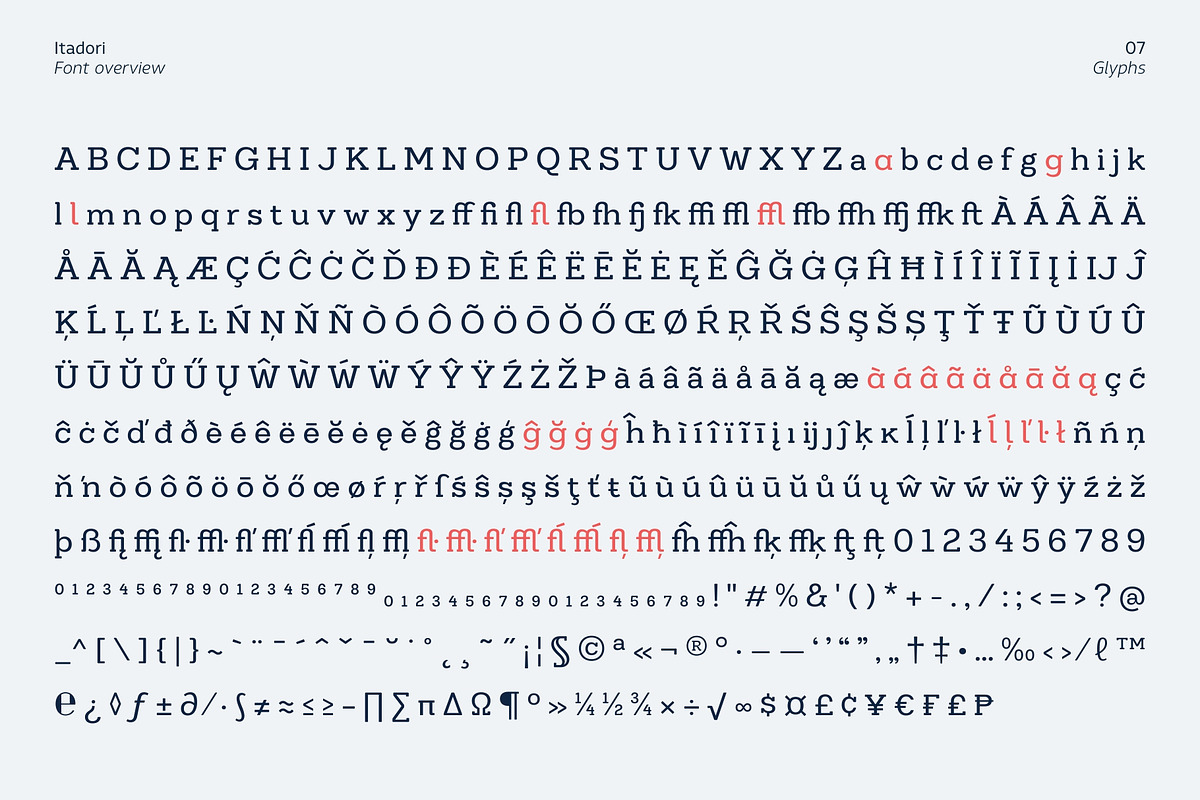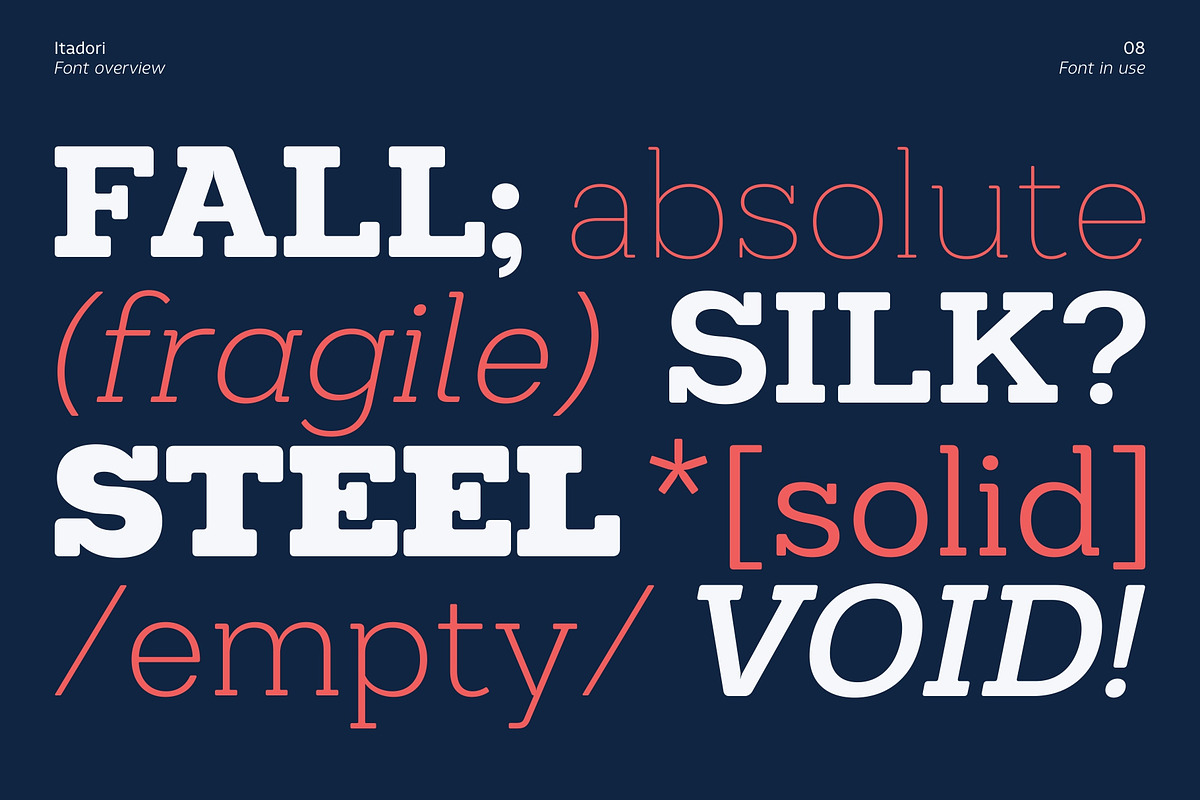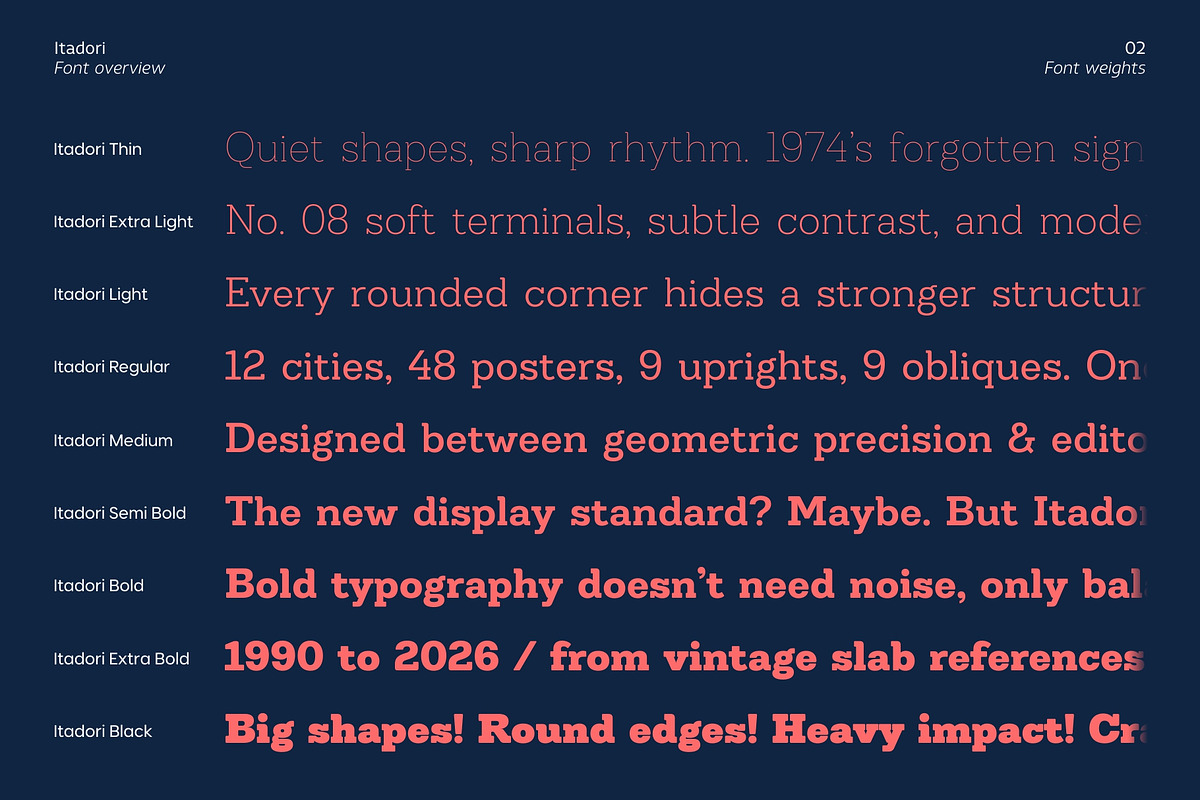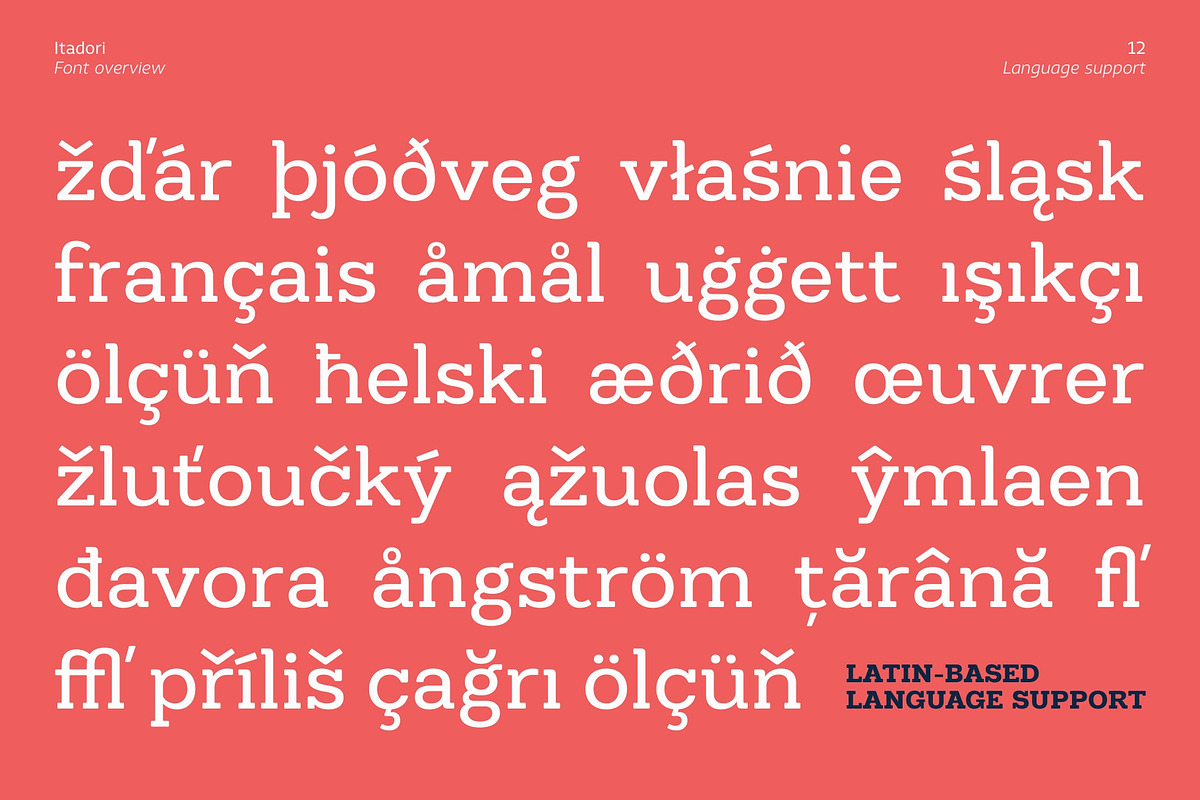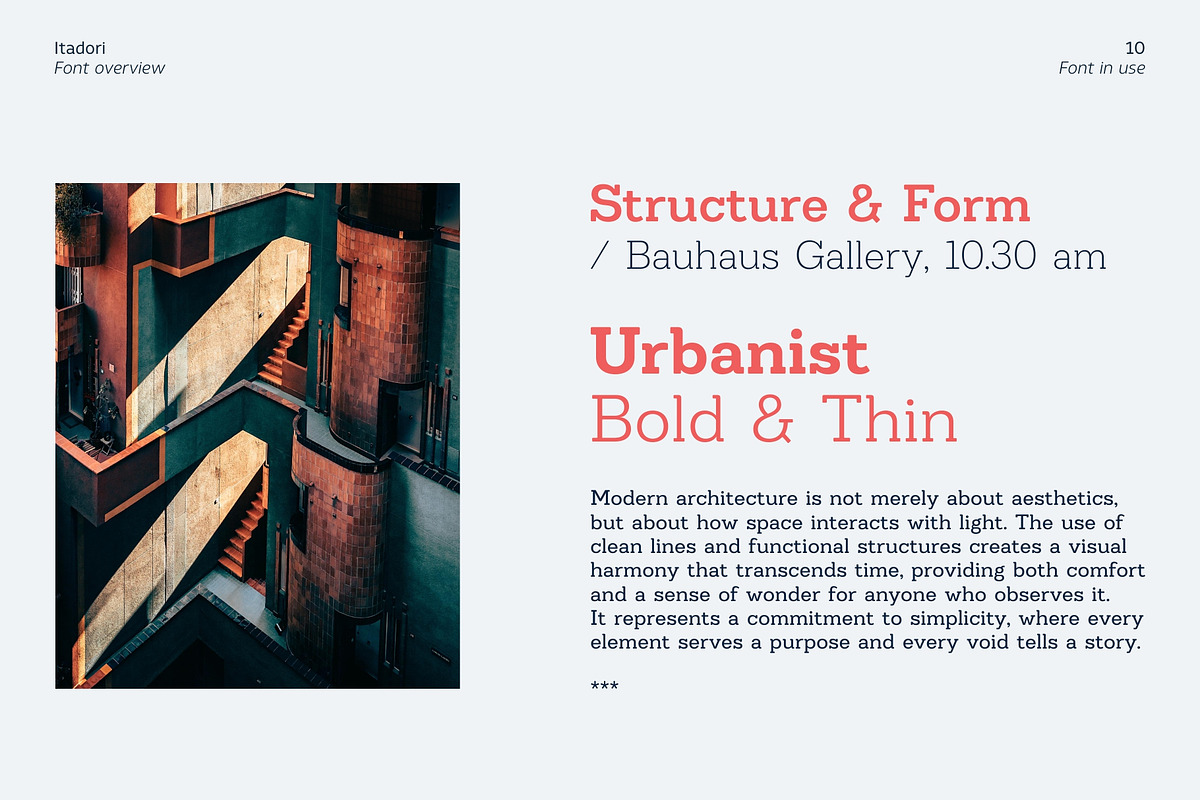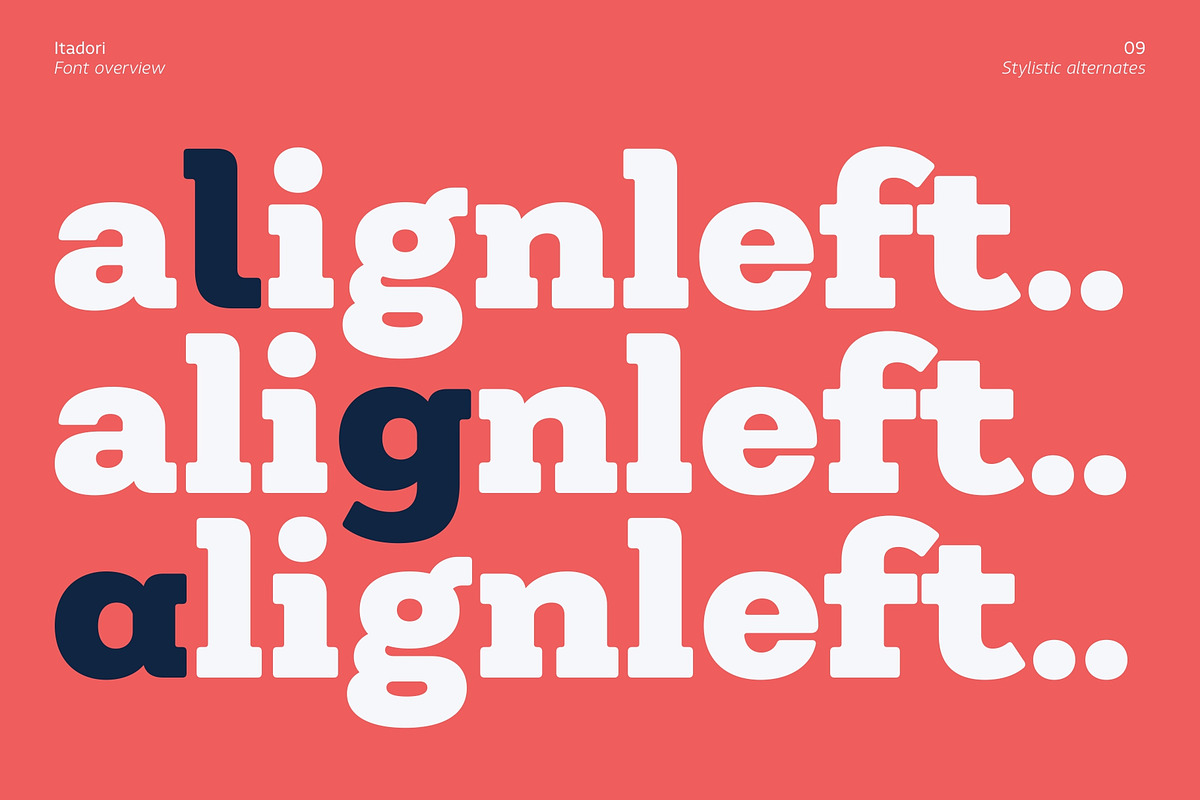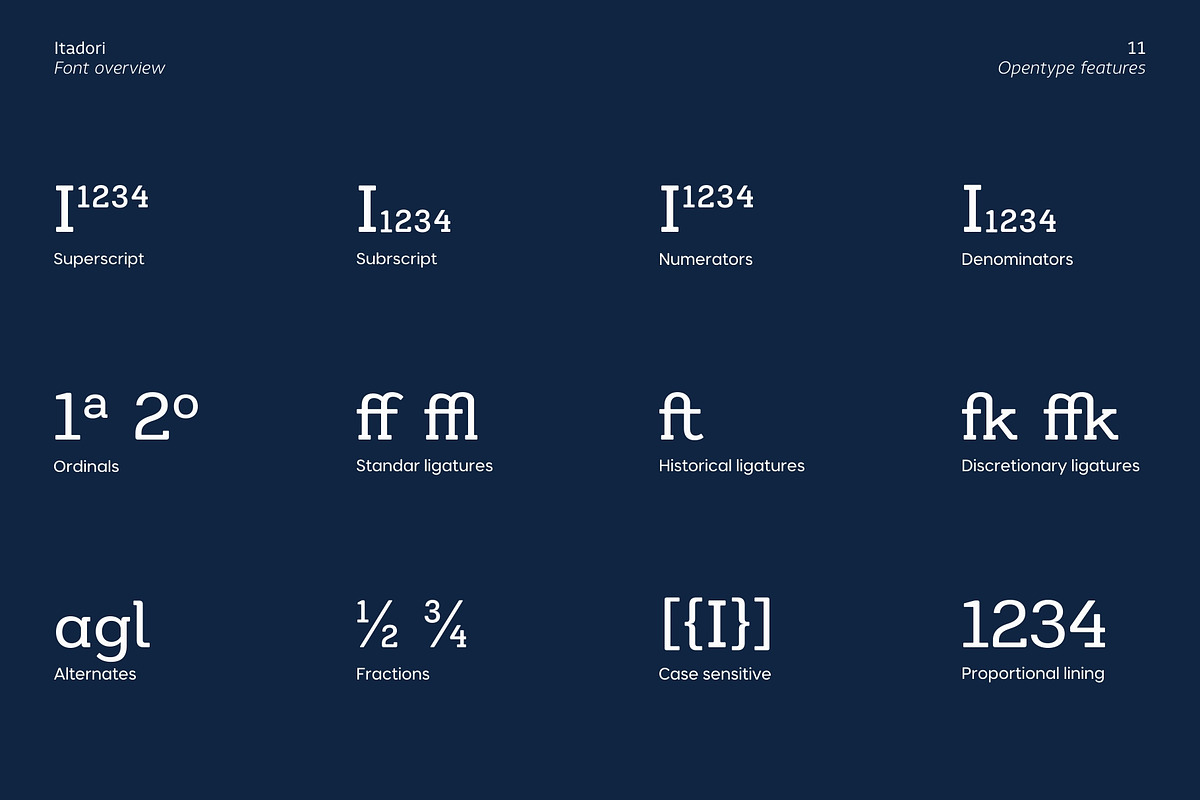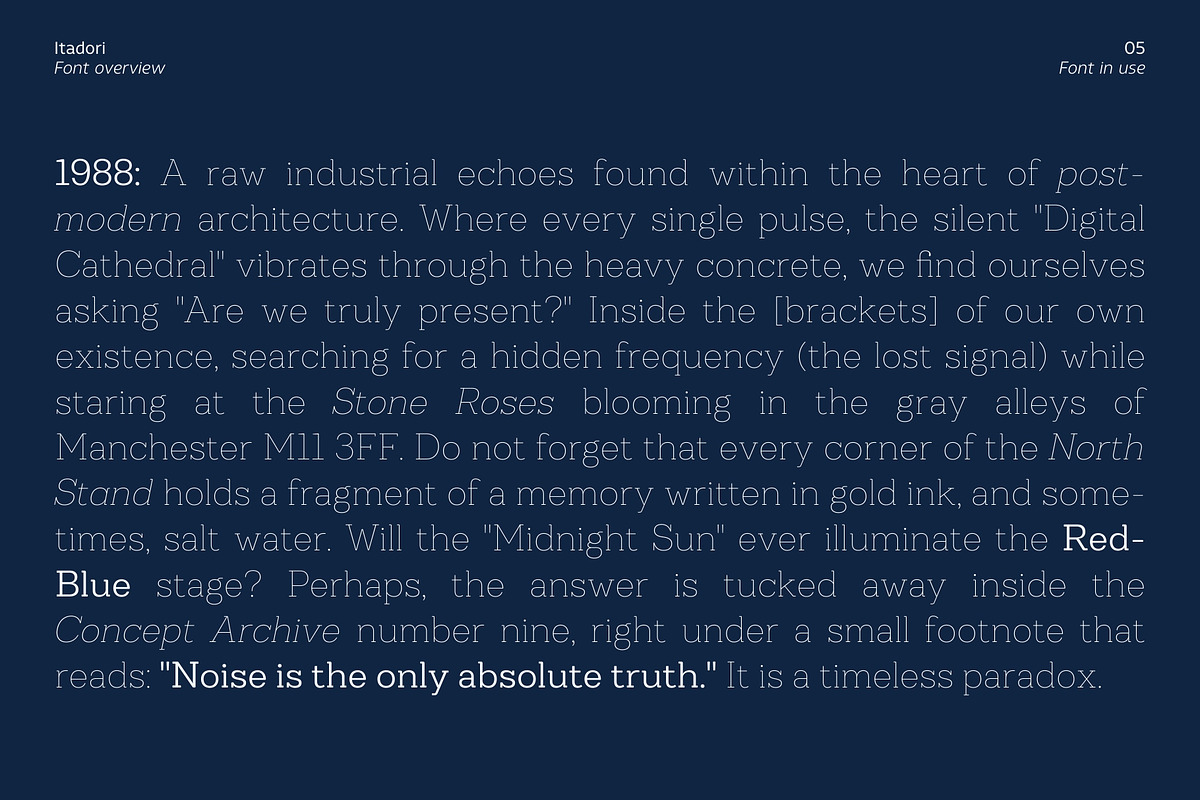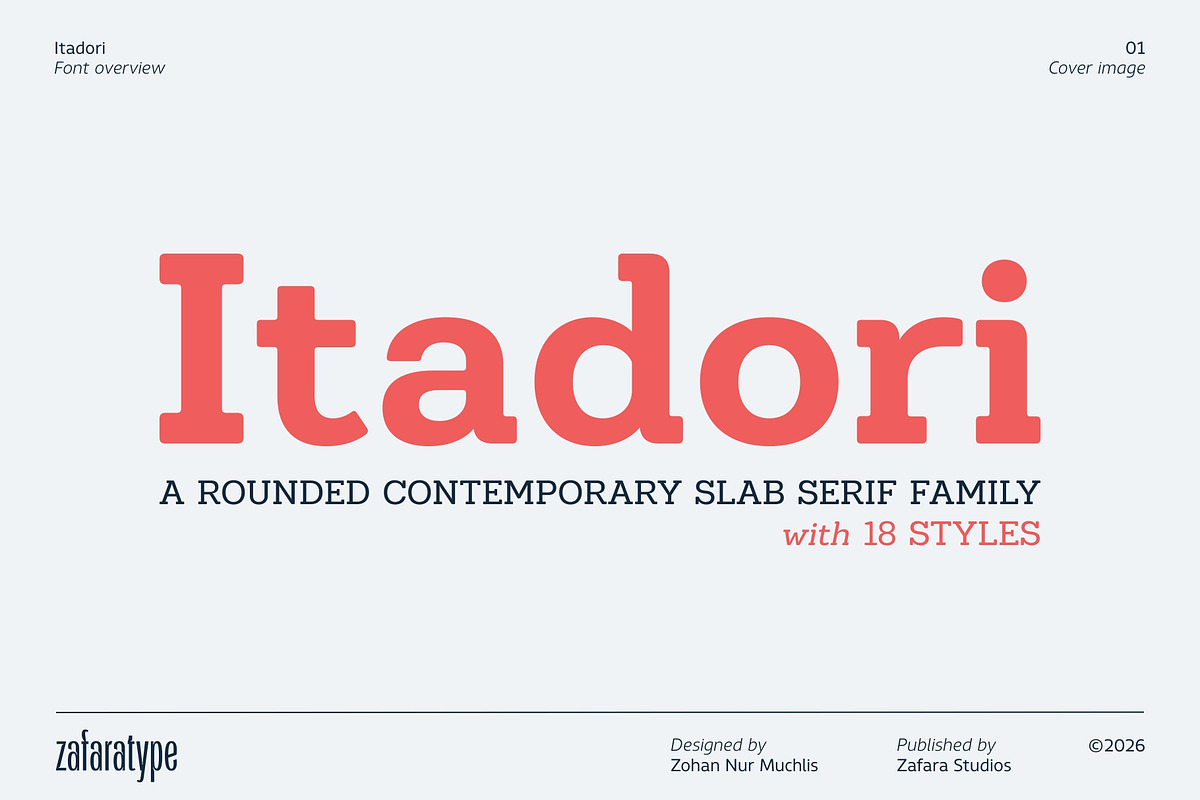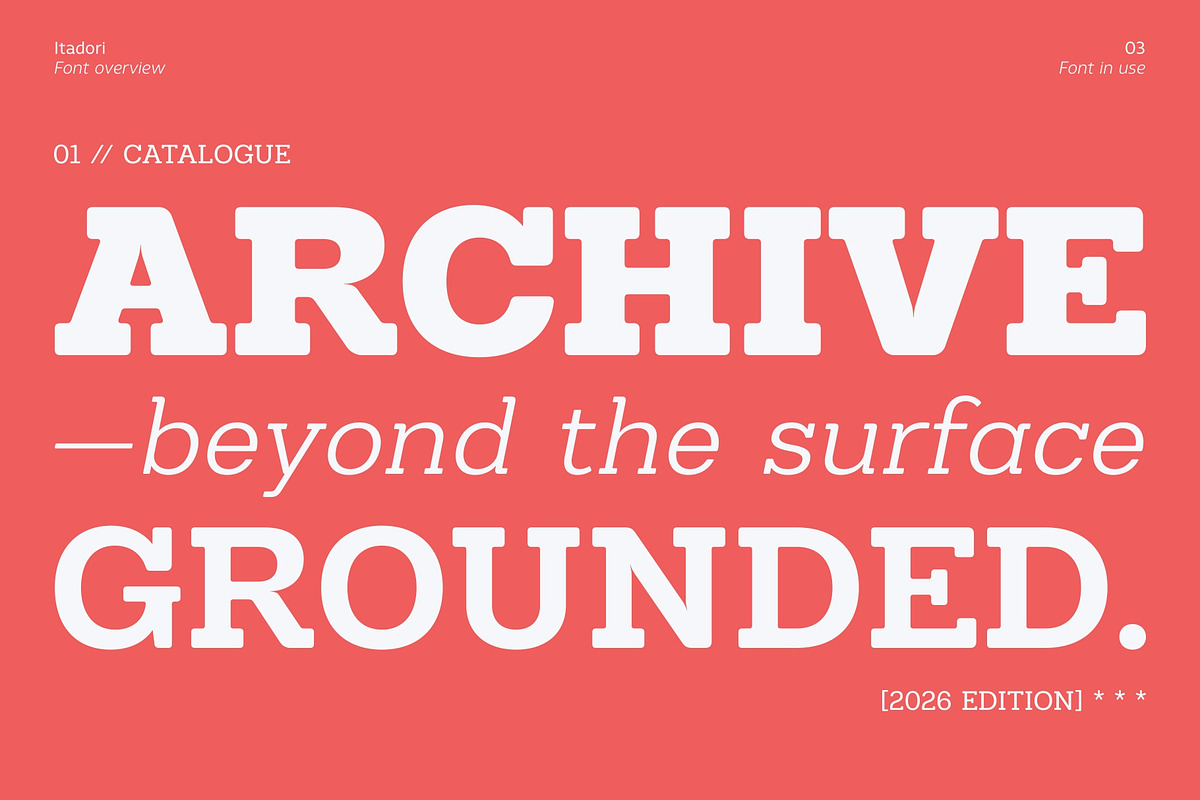
Itadori
Itadori is a rounded contemporary slab serif family designed to bring together bold structure and soft personality in a clean modern form. With its sturdy slab serifs, smooth curves, and balanced proportions, Itadori delivers a distinctive look that feels strong, friendly, and versatile at the same time.
Its rounded construction gives the typeface a warm and approachable character while still maintaining the confident presence of a slab serif. This balance makes Itadori highly flexible for a wide range of design purposes, from branding, packaging, editorial layouts, and advertising to posters, social media graphics, and modern visual identities.
The family includes 18 styles, ranging from Thin to Black with matching italics, offering a complete typographic system for both subtle hierarchy and bold visual impact. Each style is carefully crafted to maintain consistency, readability, and rhythm across different weights and applications.
With 513 glyphs and extensive Latin Extended language support, Itadori is built for multilingual typography and supports a wide range of Western, Central, and Eastern European languages. This makes it suitable for international branding projects and global communication needs.
Modern yet approachable, expressive yet functional, Itadori is designed to stand out in contemporary creative work while remaining highly readable and adaptable across both display and editorial use.